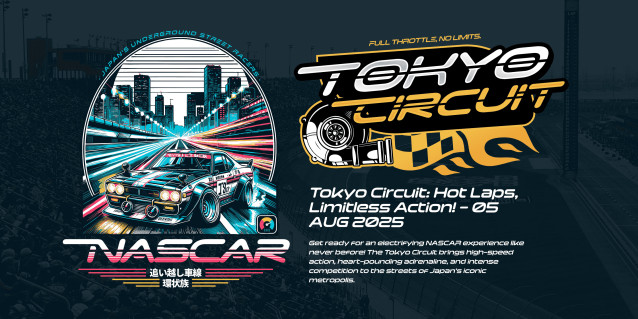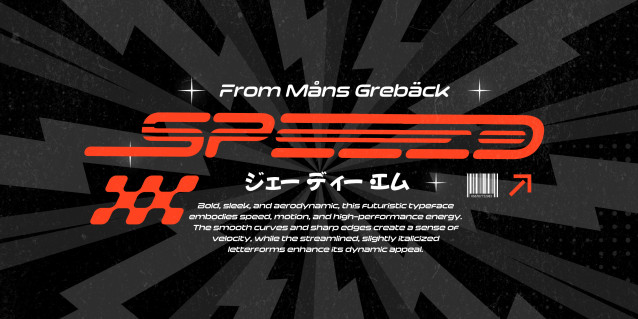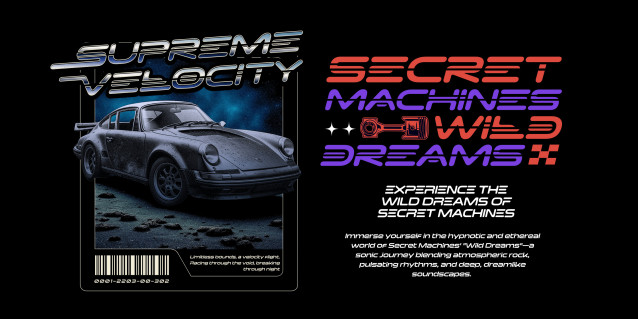
Speeed Font is a racing-inspired font, built with bold shapes and a feeling of acceleration. The lettering has a modern feel, a bit futuristic, with a speedy vibe that makes it feel fast even when standing still.
Buckle up for this fast display font with strong presence, that can be used for a variety of media such as logos, video games, posters and apparel. The unique style makes it stand out in any situation where you want to inject a sense of velocity, power and action.
The font is built with advanced OpenType functionality and guaranteed top-notch quality, containing stylistic and contextual alternates, ligatures and more automatic and manual features; all to give you full control and customizability.
It has extensive lingual support, covering all Latin-based languages, from North Europa to South Africa, from America to South-East Asia. It contains all characters and symbols you’ll ever need, including all punctuation and numbers.
Mans Greback is the mastermind behind this striking design, bringing a touch of adrenaline to your text.